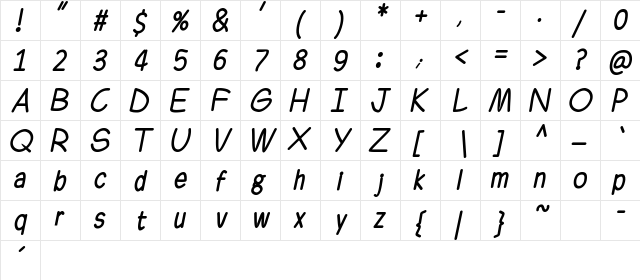
Ferrero Rocker Italic
| Designer | Letterara 2019 |
Design Context for Ferrero Rocker Typeface
Ferrero Rocker offers clean, dependable letterforms without strong stylistic allegiance, making it a practical choice for designers who need flexibility. Its italic angle brings a sense of urgency and motion to the letterforms.
Pro Tip: Try Ferrero Rocker for annotation and caption copy alongside an upright companion — the contrast in angle creates a dynamic but ordered typographic system.